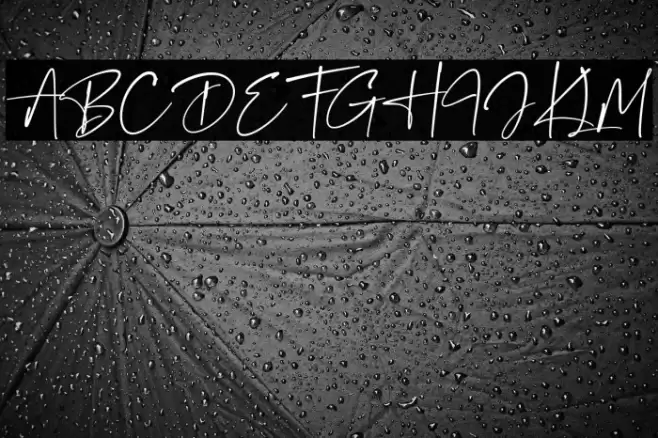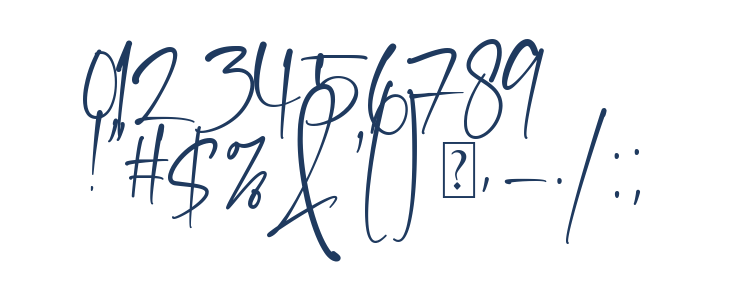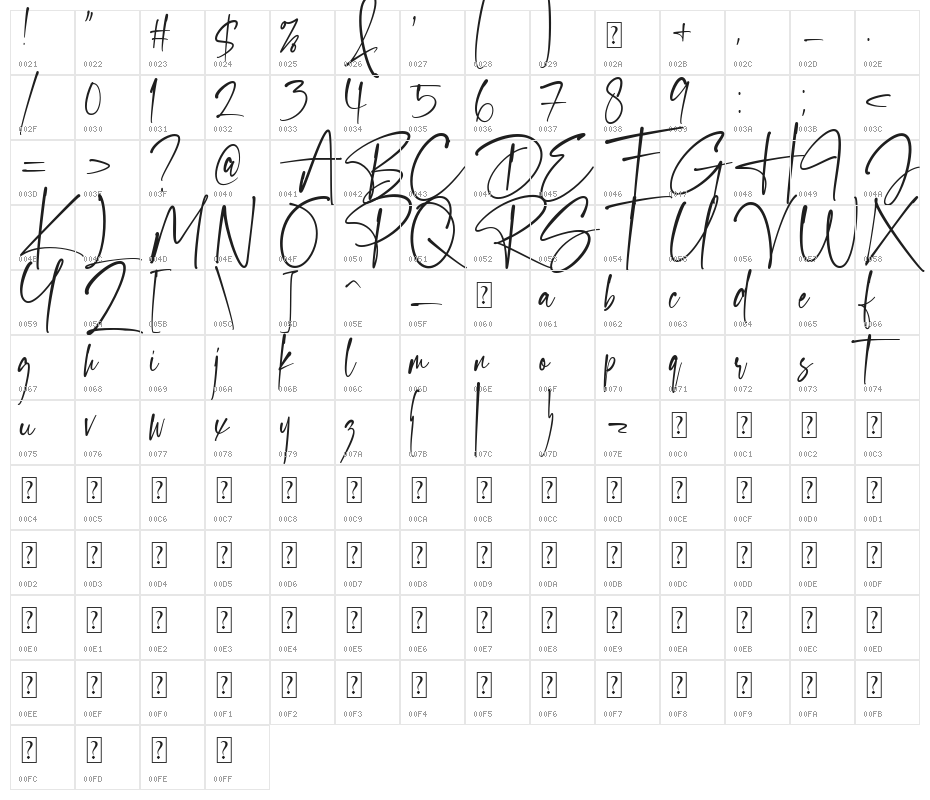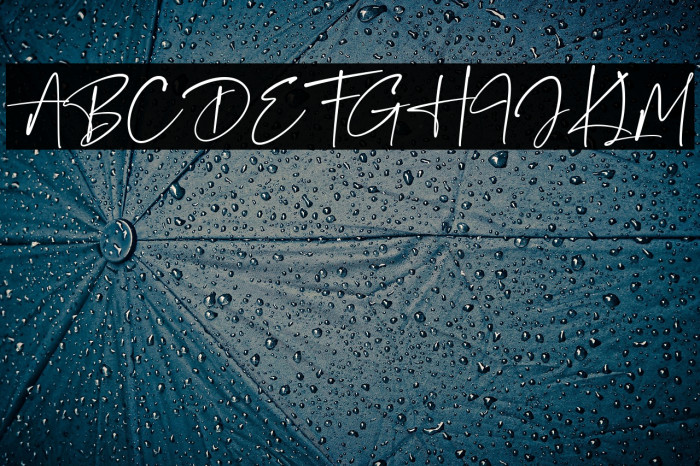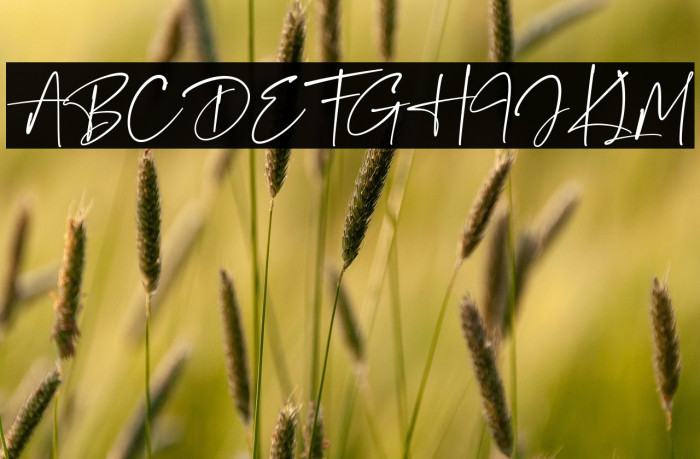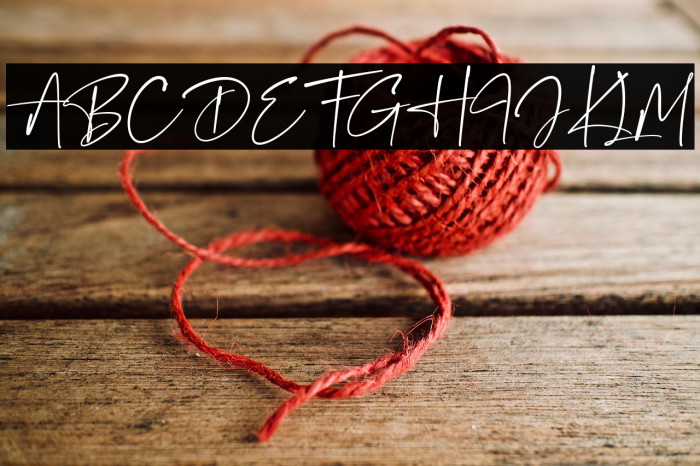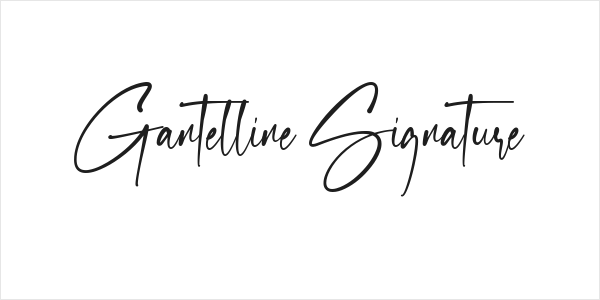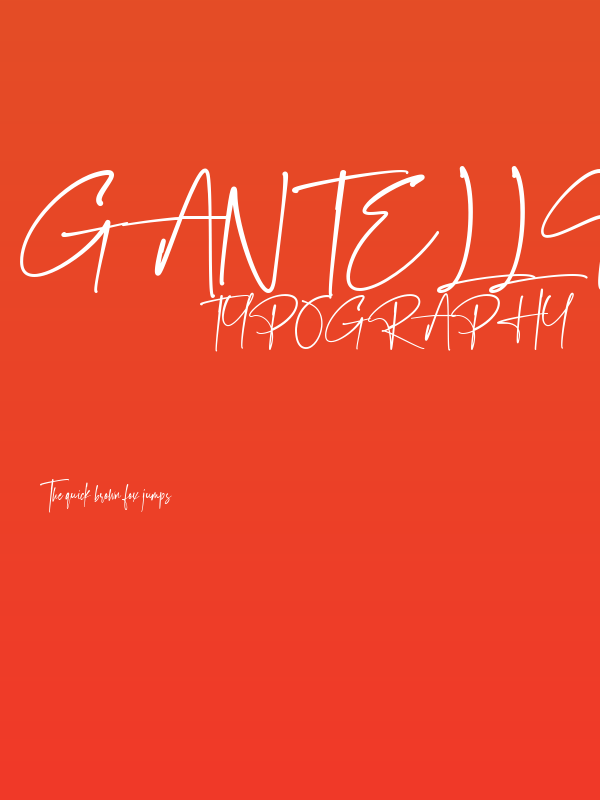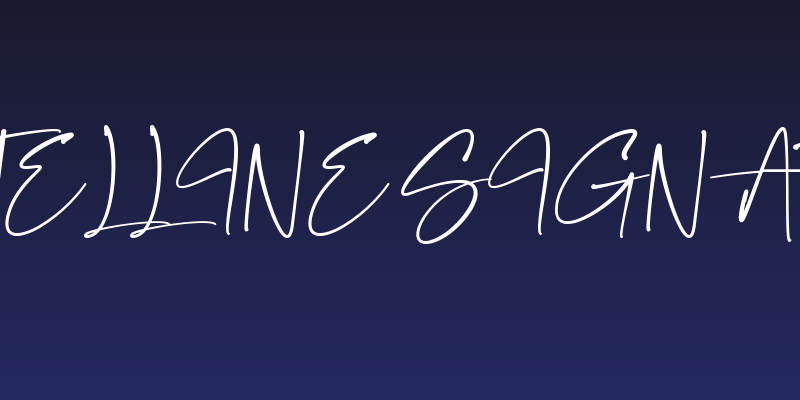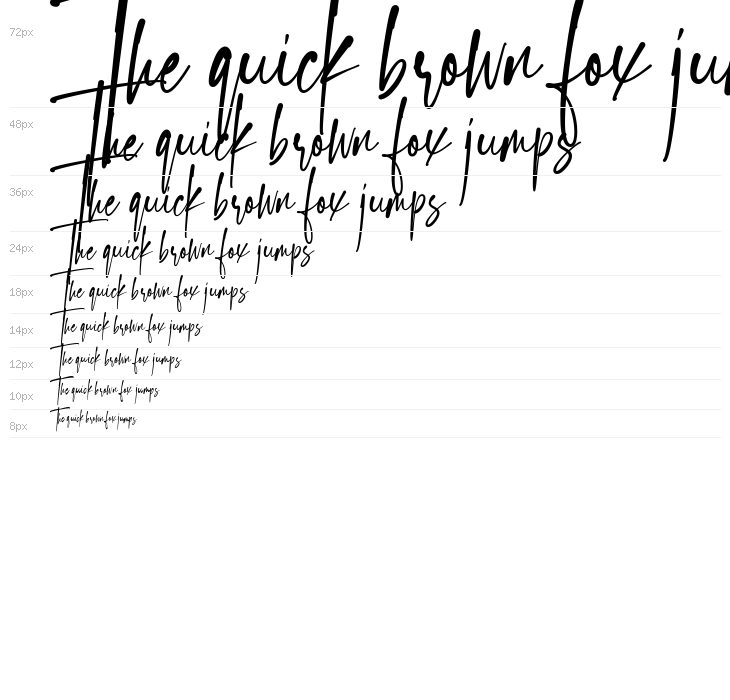
Gantelline Signature Font
Gantelline Signature Description
This font exudes a modern and elegant handwritten style, characterized by its fluid and continuous strokes that mimic the natural flow of handwriting. The uppercase letters are slightly elongated and maintain a consistent slant, giving a sense of movement and dynamism. The lowercase letters are more compact, with some letters featuring distinctive loops and curves that add personality and flair. The numerals are bold and slightly larger, ensuring readability while maintaining the overall aesthetic. Special characters are seamlessly integrated, maintaining the same flowing style. This font is perfect for projects that require a personal touch, such as invitations, branding, and creative designs.
A modern, elegant handwritten font with fluid strokes and dynamic slant from Uncategorized fonts.
- Font: Gantelline Signature
- Proposed Projects: Ideal for invitations, branding, personal notes, and creative design projects.
- Use Case: Logos, Headlines, Invitations